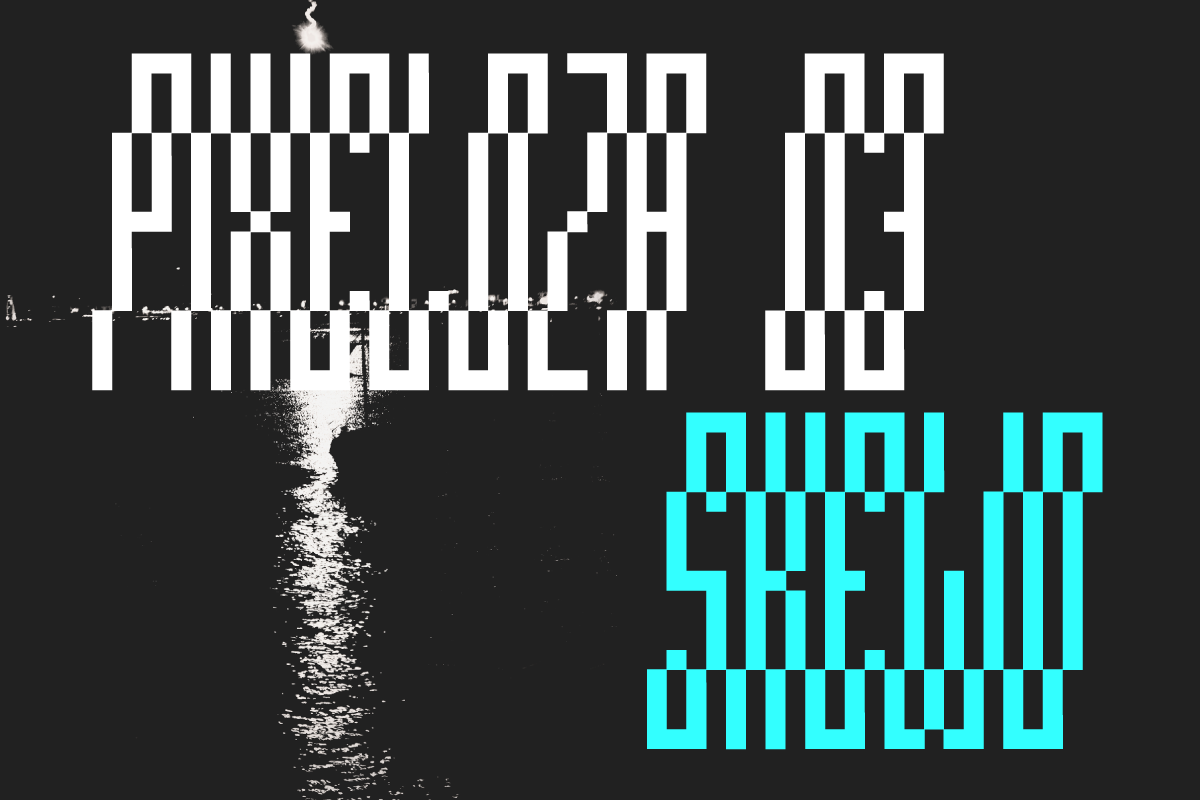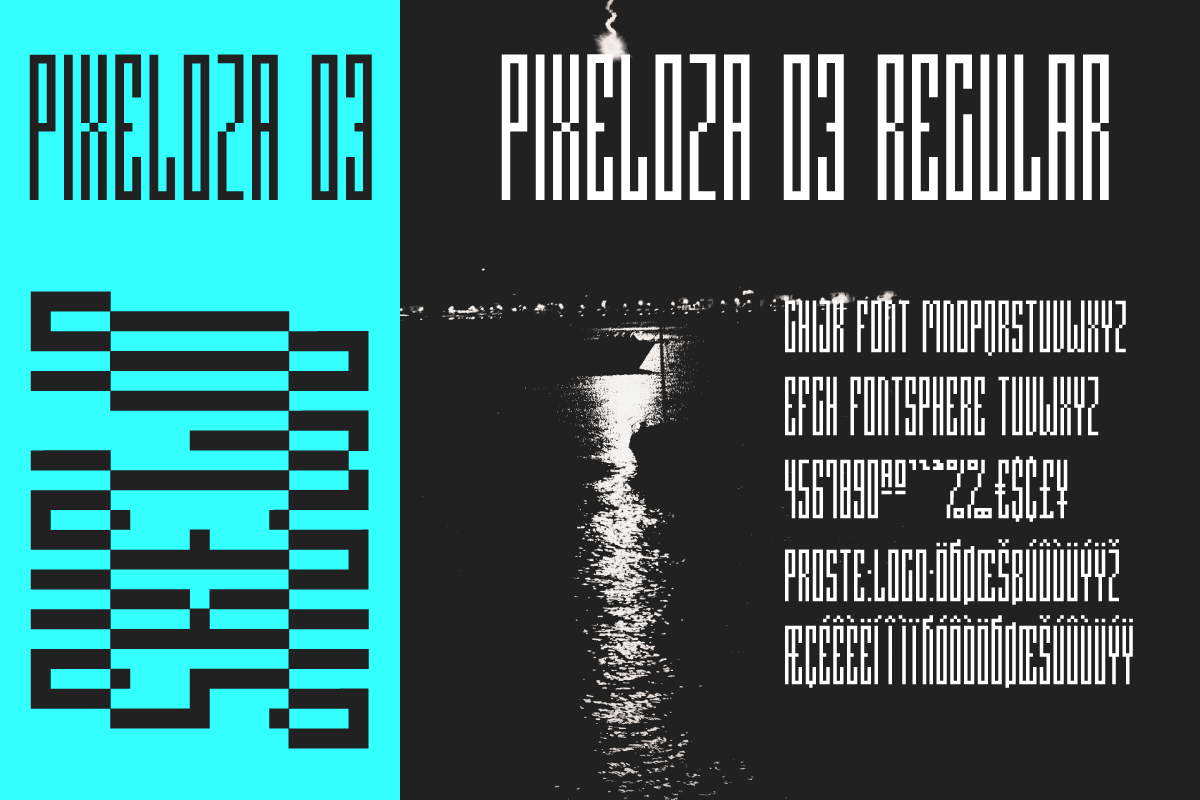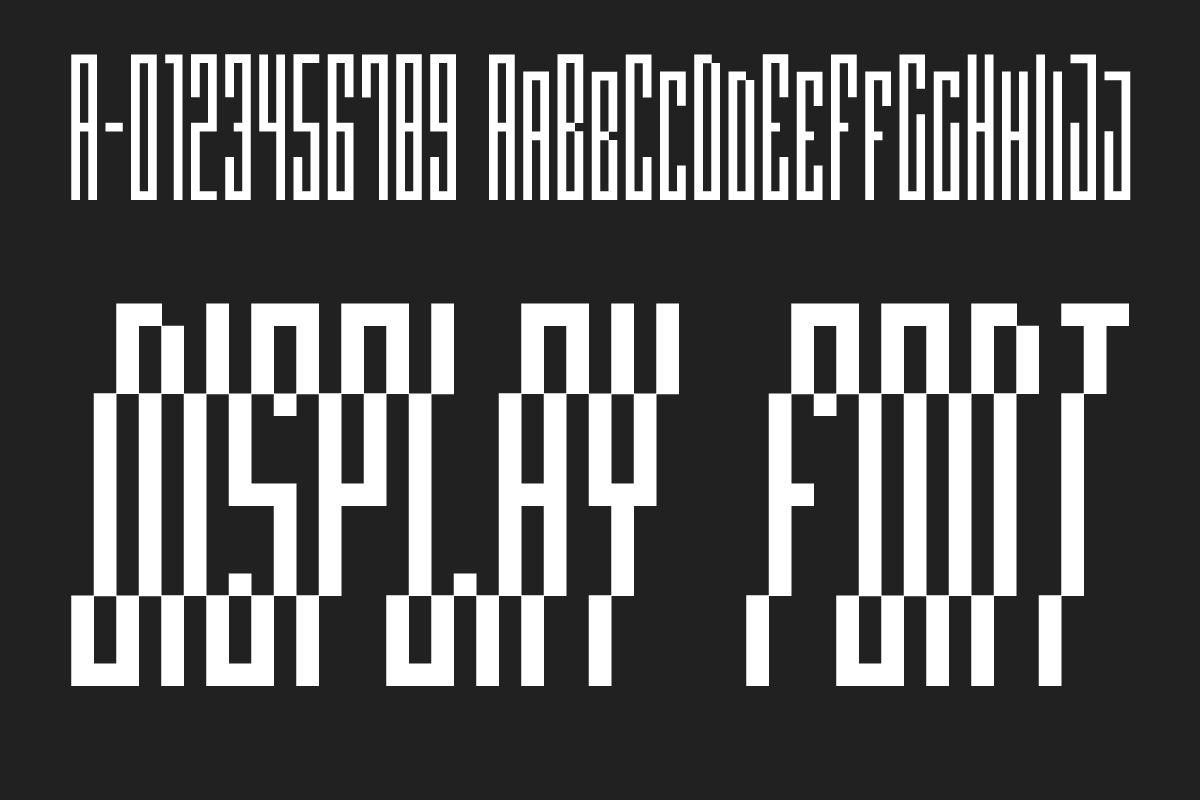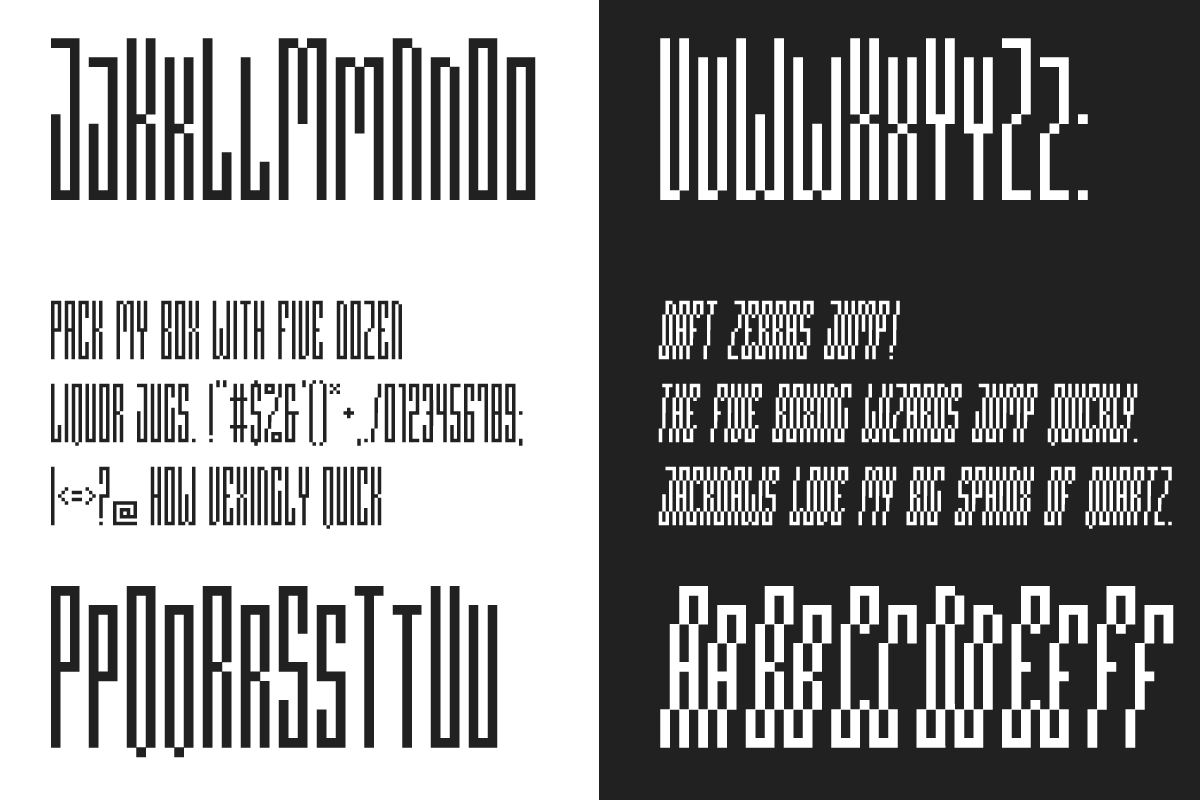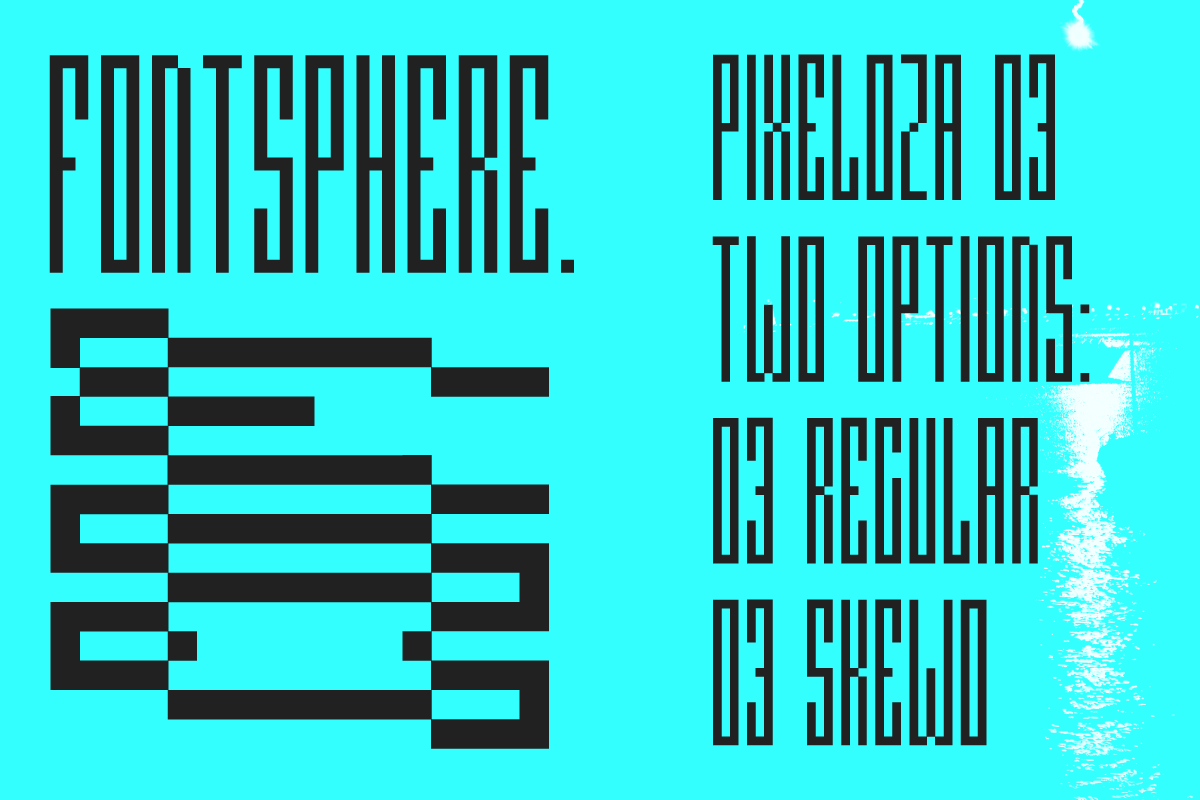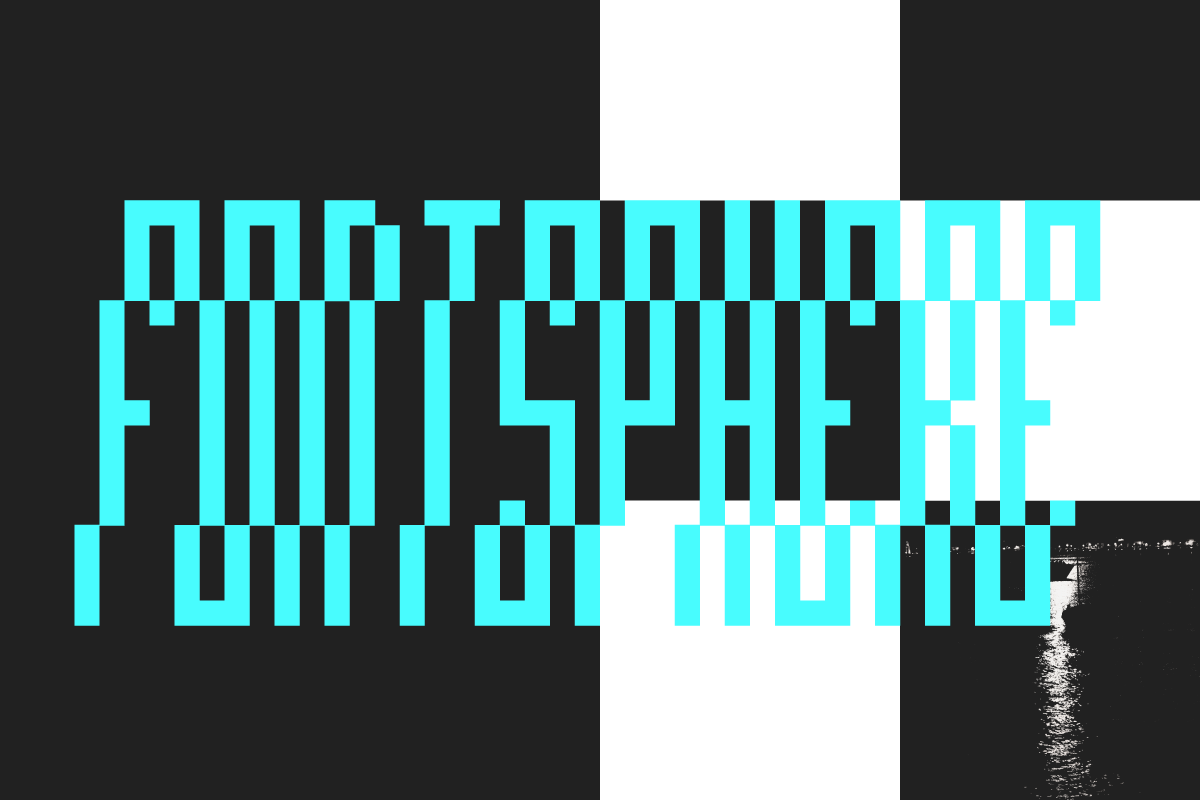
PIXELOZA 03
Pixeloza 03 is a pixel-style, grid-based, display typeface.
Compared to Pixeloza 01&02 - the lightest and clearly narrow version.
The font is characterized by its simplicity, attention to detail, and original form. You can use it in a wide variety of projects. It gives many possibilities for creating graphics.
Pixeloza 03 is available in two options: Pixeloza 03 Regular and Pizeloza 03 Skewo Regular.